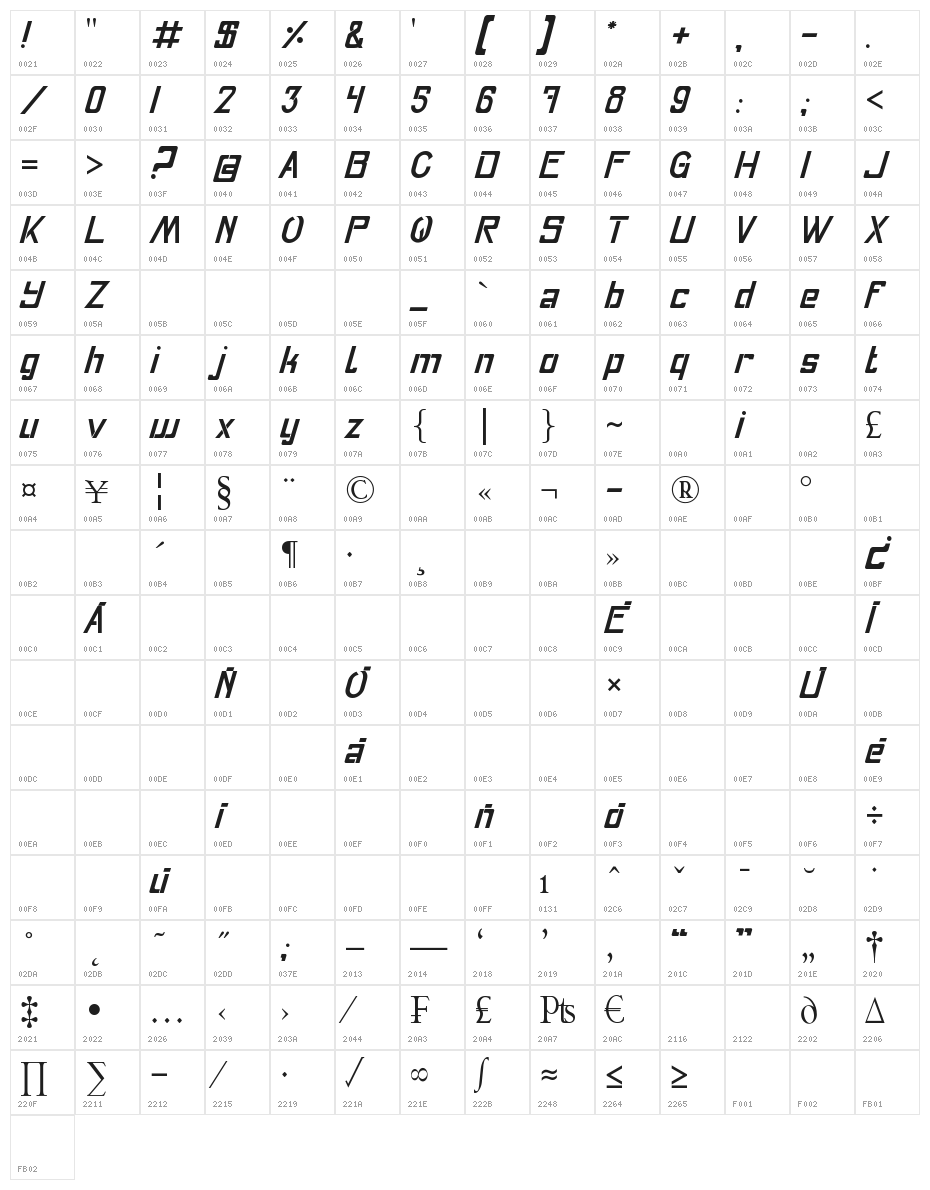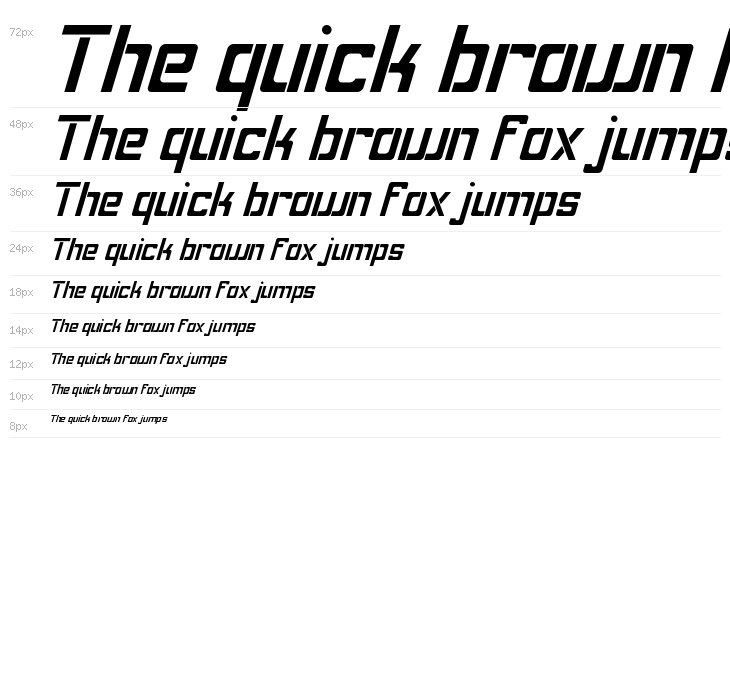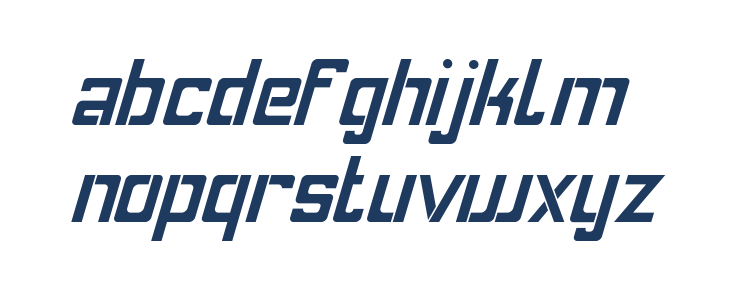
Fly Font
Fly Description
This font features a modern, dynamic style with a distinct slant that gives it a sense of motion and speed. The characters are bold and slightly condensed, with a consistent stroke width that maintains clarity and readability. The uppercase letters are angular and sharp, while the lowercase letters maintain a similar structure, providing a cohesive look. The numerals are well-proportioned and align perfectly with the overall design. Special characters are included, each designed to match the font's sleek and contemporary aesthetic. This font is ideal for projects that require a strong, impactful presence.
| Use Case | Logos, Headlines, Advertising |
| Proposed Projects | Ideal for branding, sports team logos, automotive designs, and dynamic advertising materials. |